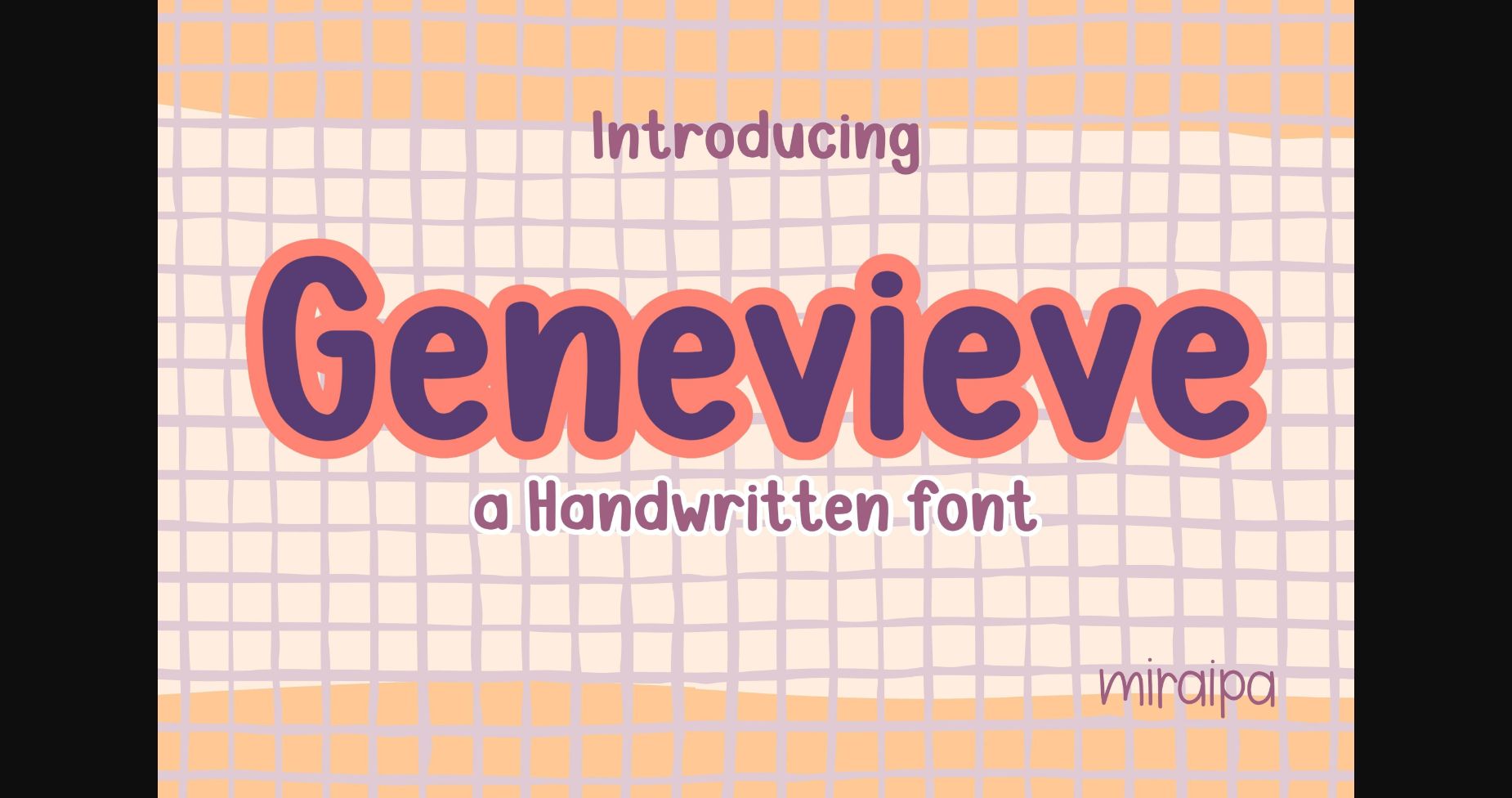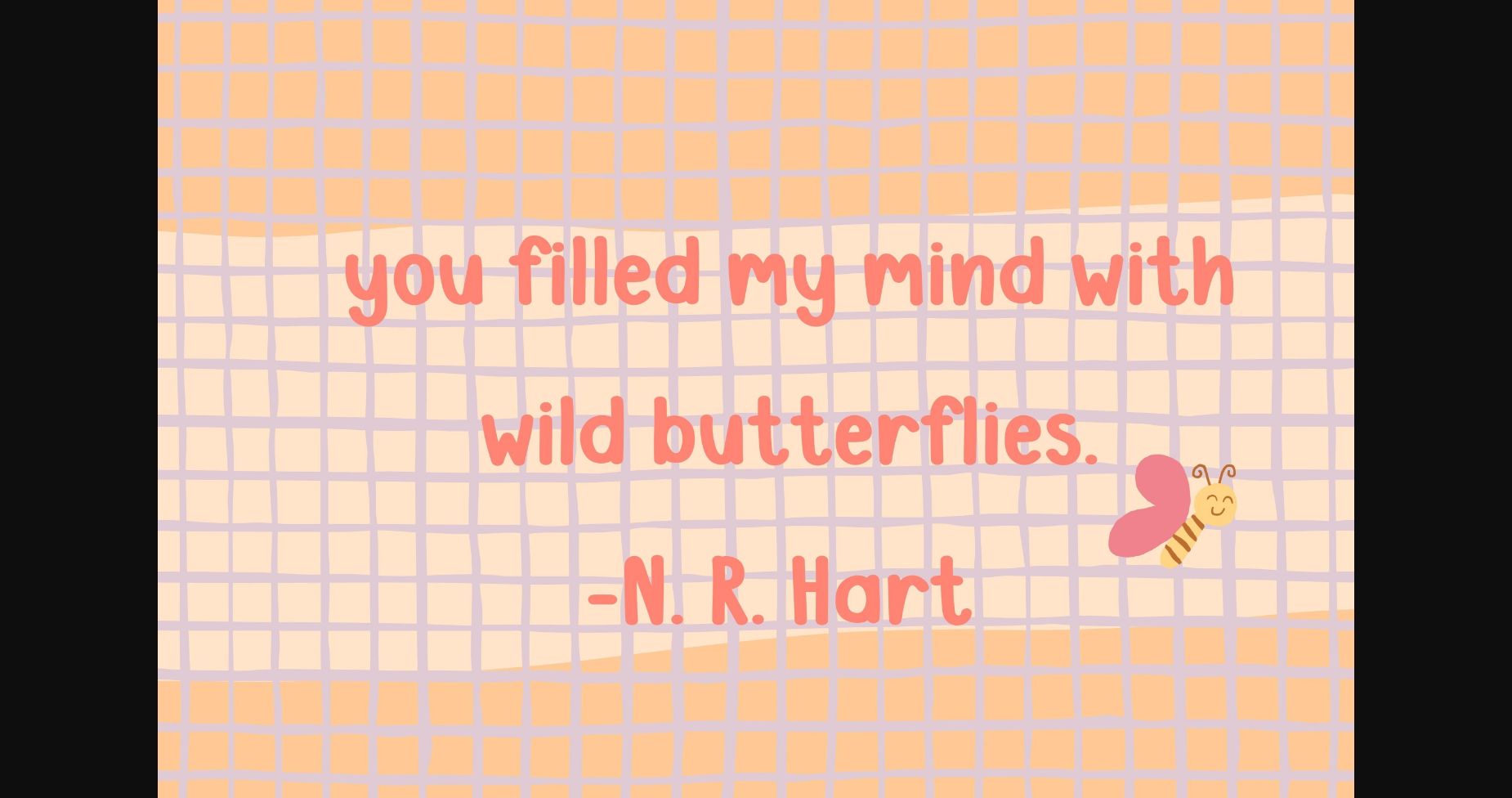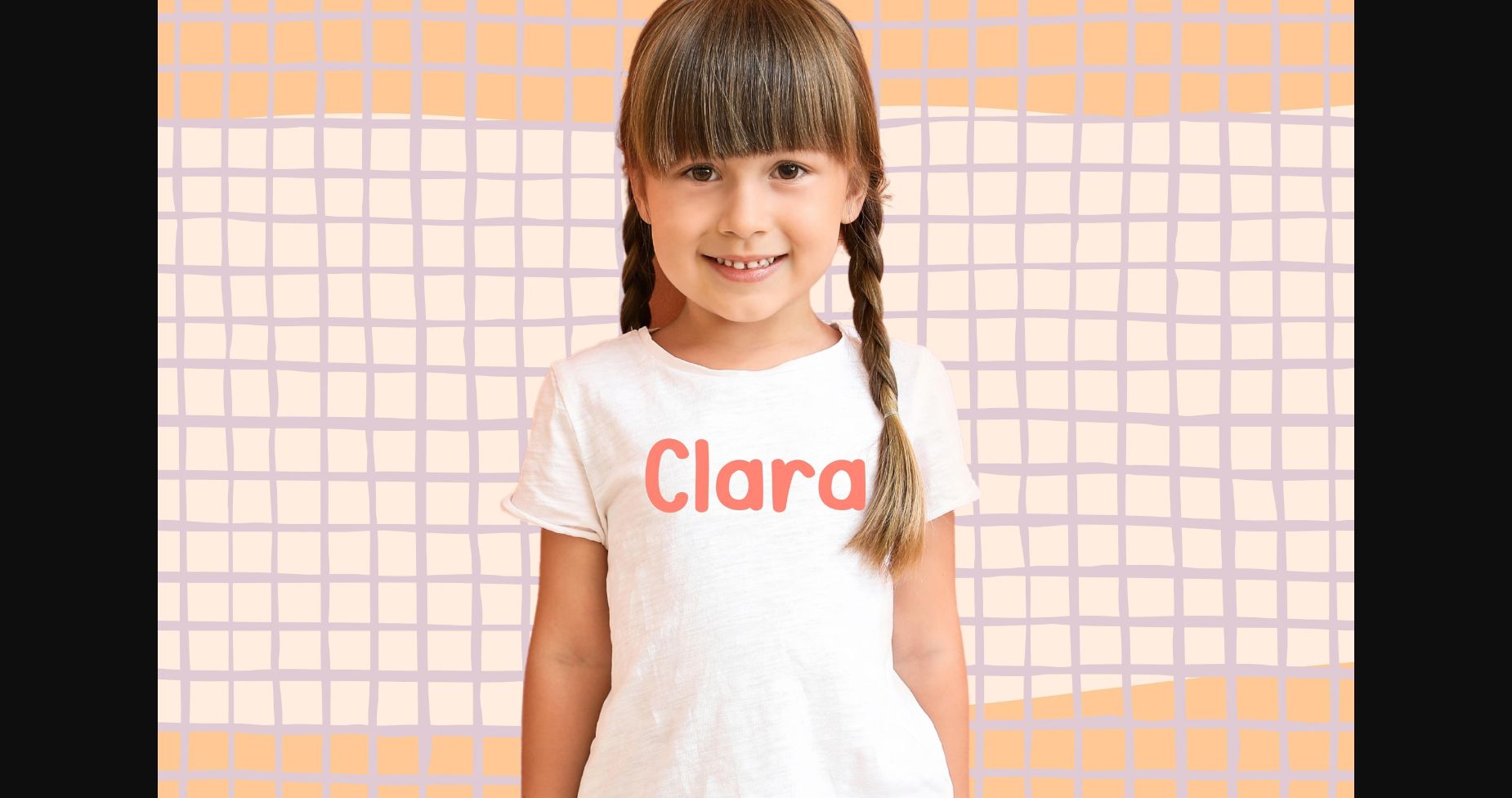
About Genevieve Font
Genevieve is a cute and fresh handwritten font perfect for your diaries, planners, back-to-school projects, party invitations, posters, blogs, clothing, child-related designs, greeting cards, social media posts, or anything that needs a friendly touch. Add it now to your fonts library, and it will bring any of your DIY projects to life.